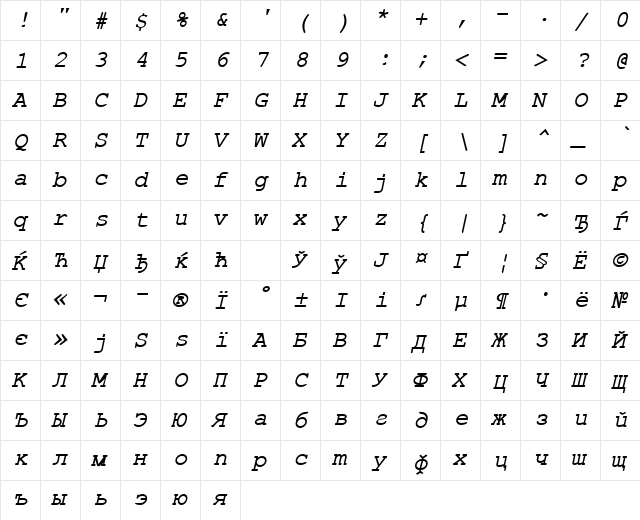
ER Kurier 1251 Italic Font Preview
ER Kurier 1251 Italic
ER Kurier 1251 Italic Font Details
Design Context for ER Kurier 1251 Typeface
ER Kurier 1251 is a composed and adaptable typeface that performs quietly and consistently across a wide range of design contexts. The slanted form adds forward momentum and visual energy.
Pro Tip: Try ER Kurier 1251 for annotation and caption copy alongside an upright companion — the contrast in angle creates a dynamic but ordered typographic system.